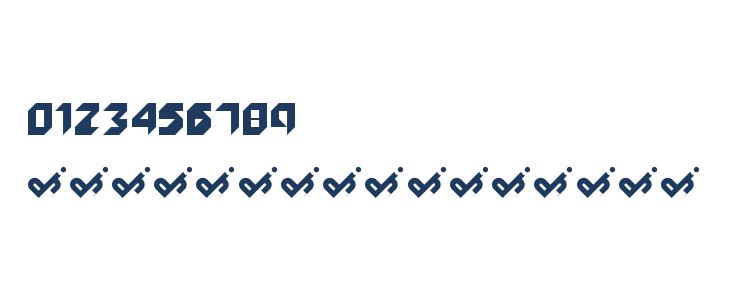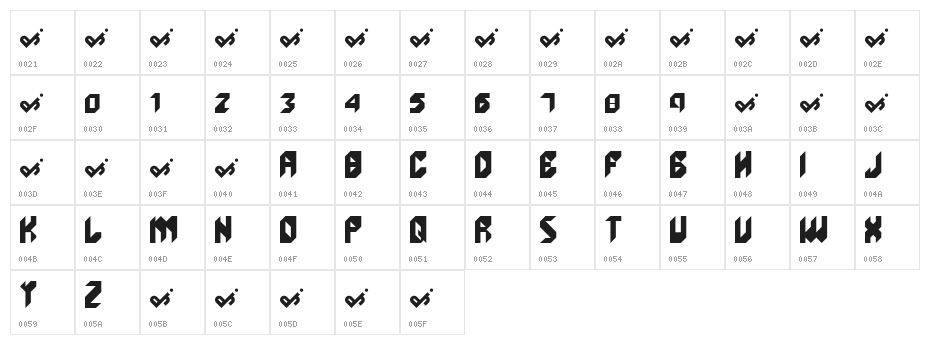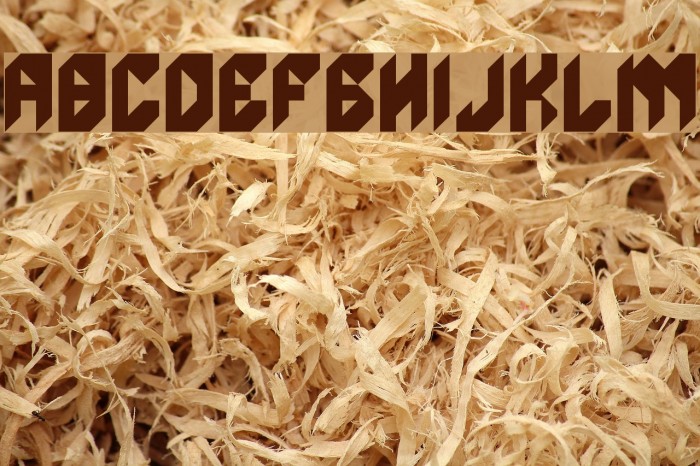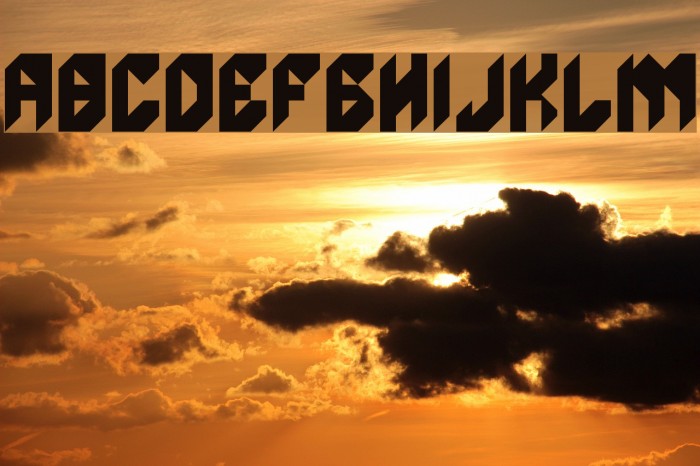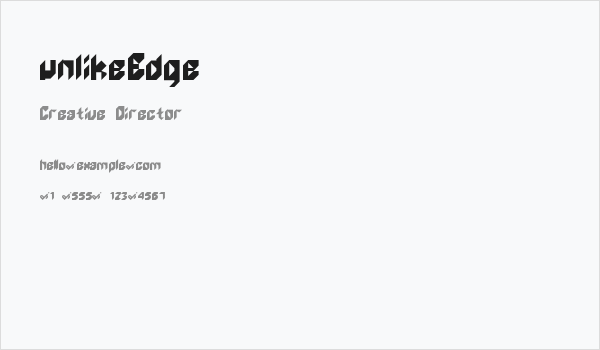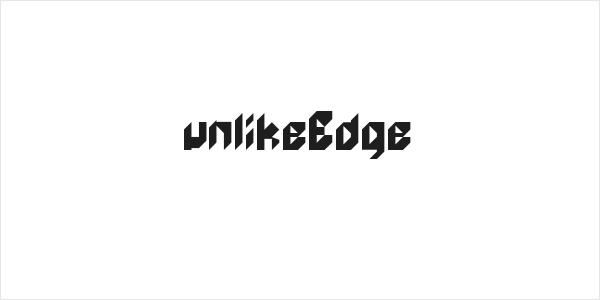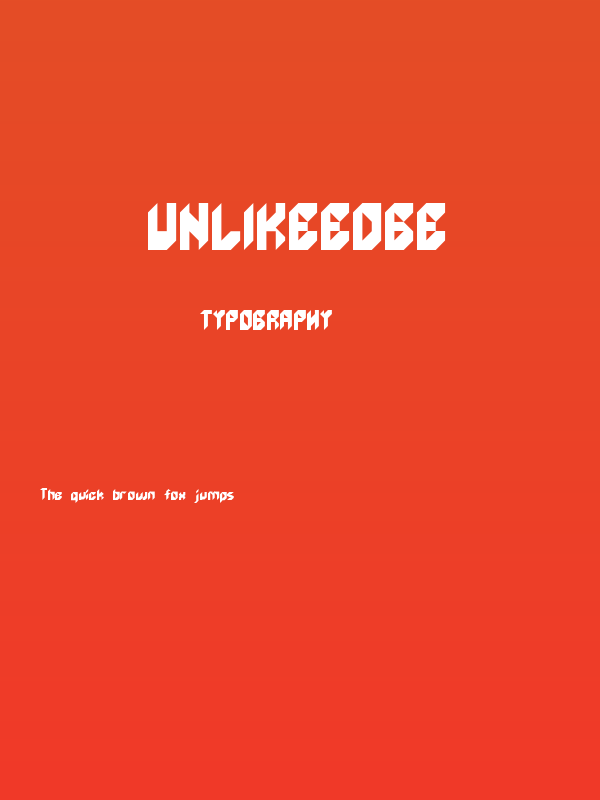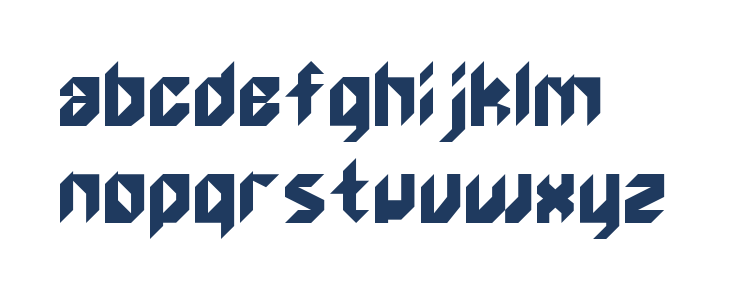
unlikeEdge Font
unlikeEdge Description
This font features a bold and angular design, characterized by sharp edges and geometric shapes. The uppercase and lowercase letters maintain a consistent style, with each character displaying a unique combination of straight lines and pointed angles. The numbers follow the same design principles, offering a cohesive look across all characters. The special characters are stylized to match the overall aesthetic, adding a decorative touch. This font's distinct appearance makes it suitable for projects that require a modern and edgy feel.
| Proposed Projects | Ideal for branding, posters, and modern digital designs where a strong visual impact is desired. |